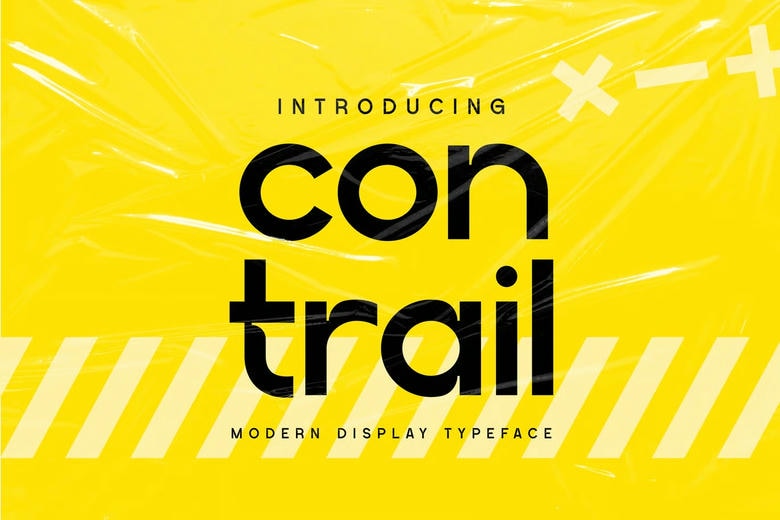
Contrail Font
Contrail is a new geometric display typeface which has a high-impact branding and editorial design and provides a sense of clarity and confidence to the reader through the use of bold proportions, low contrast strokes and controlled curves. Its visual language is confident, modern, and purposeful- it is the best to use when a designer requires formality but not rigidness.
It has a confident, trendsetting, and editorial feel that appeals that organically fits fashion magazines, creative studios, tech startups, and social-first brands. Letterforms are well-constructed and precise, and terminals are confident as well as balanced spacing, which keep the eyes on the digital and print layouts. Contrail works particularly well with branding systems, posters, magazine covers, social media graphics, packaging and campaign headlines.
Regardless of whether you are creating a fashion layout, a startup identity, or an expressive social content, Contrail helps to bridge modern framework with expressive influence- helping to build coherent messages, assertive narrative, and memorable brand identity.